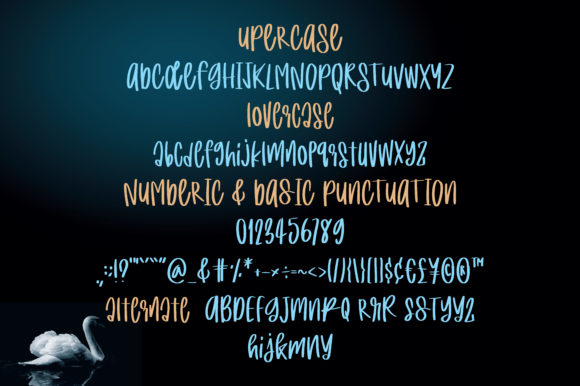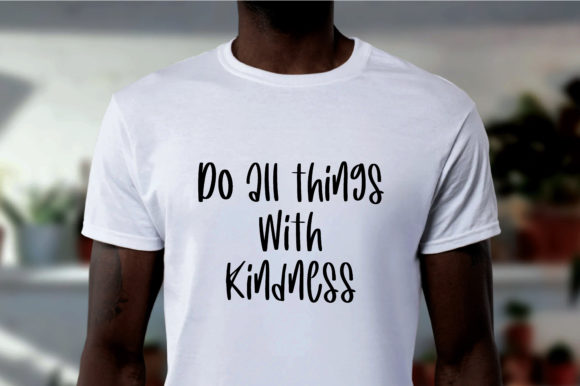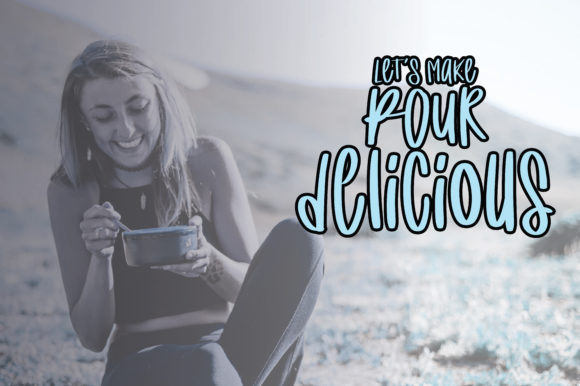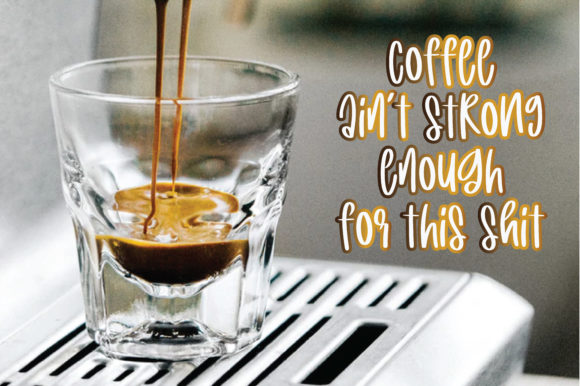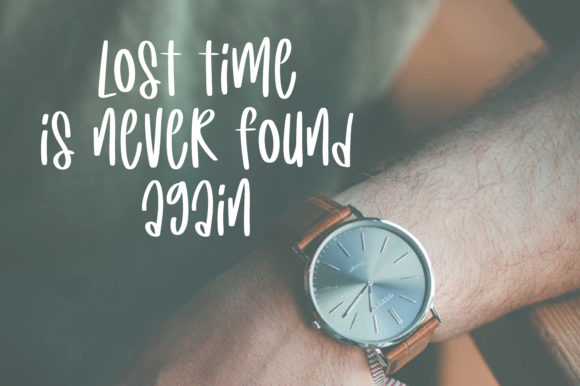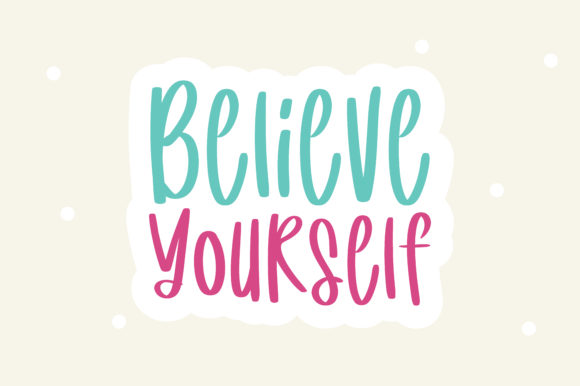
Introducing Be Kind Font: The Ultimate Handwritten Font for Designers and Crafters
Are you tired of using the same old fonts for your design projects? Look no further! Be Kind Font is a cheerful and friendly handwritten font that is sure to elevate your designs to the highest level. Whether you’re working on branding, headings, wedding designs, invitations, signatures, logos, labels, or any other project, Be Kind Font is the perfect choice.
What Makes Be Kind Font Special?
Be Kind Font is a unique and versatile handwritten font that is designed to add a personal touch to your designs. Its cheerful and friendly vibe makes it perfect for a wide range of projects, from formal to informal. The font is carefully crafted to ensure that it is clear and readable, making it ideal for use in various design applications.
Features of Be Kind Font
- Handwritten style: Be Kind Font has a beautiful handwritten style that gives your designs a personal and human touch.
- Cheerful and friendly vibe: The font has a cheerful and friendly vibe that makes it perfect for designs that require a warm and approachable feel.
- Highly versatile: Be Kind Font can be used for a wide range of design projects, including branding, headings, wedding designs, invitations, signatures, logos, labels, and more.
- Clear and readable: The font is carefully crafted to ensure that it is clear and readable, making it ideal for use in various design applications.
Use Cases for Be Kind Font
Be Kind Font is a versatile font that can be used for a wide range of design projects. Here are some use cases where Be Kind Font can make a big impact:
- Branding: Use Be Kind Font to create a unique and memorable brand identity that stands out from the crowd.
- Wedding designs: Add a touch of elegance and sophistication to your wedding designs, including invitations, programs, and place cards.
- Invitations: Create beautiful and eye-catching invitations for parties, events, and other special occasions.
- Signatures: Use Be Kind Font to create a unique and personalized signature that reflects your personality.
- Logos: Create a memorable and impactful logo for your business or brand using Be Kind Font.
- Labels: Use Be Kind Font to create beautiful and eye-catching labels for your products or packaging.
Why Designers and Crafters Love Be Kind Font
Be Kind Font is a favorite among designers and crafters for several reasons:
- High-quality design: The font is carefully crafted to ensure that it is of high quality and visually appealing.
- Versatile: Be Kind Font can be used for a wide range of design projects, making it a great value for designers and crafters.
- Unique style: The font has a unique and distinctive style that sets it apart from other fonts.
In conclusion, Be Kind Font is a cheerful and friendly handwritten font that is perfect for designers and crafters who want to add a personal touch to their designs. Its versatility, clarity, and readability make it ideal for use in a wide range of design applications. Whether you’re working on branding, headings, wedding designs, invitations, signatures, logos, labels, or any other project, Be Kind Font is sure to elevate your designs to the highest level.